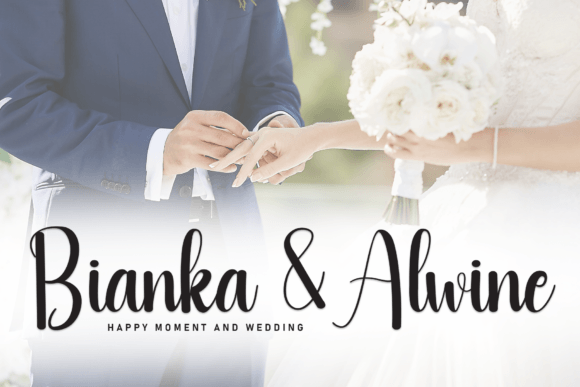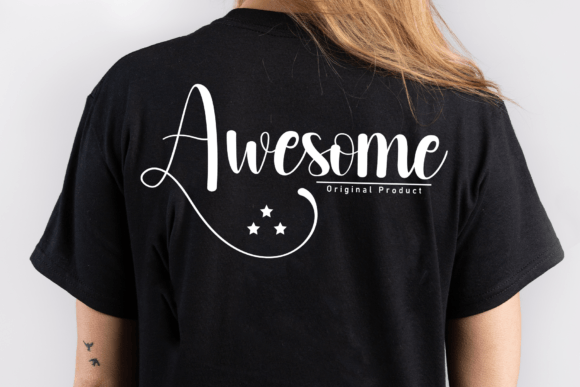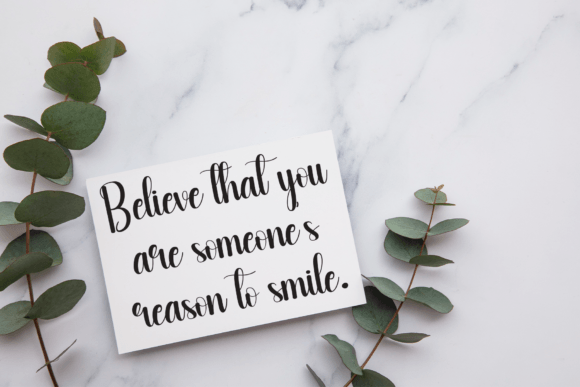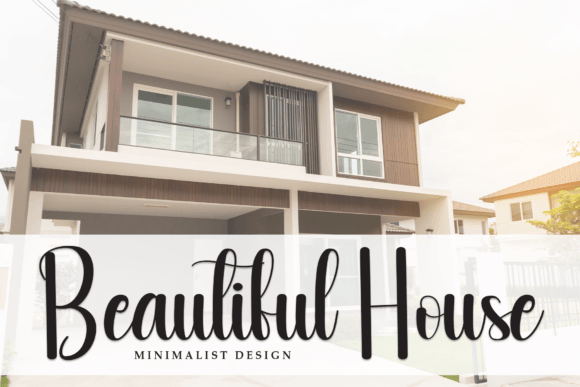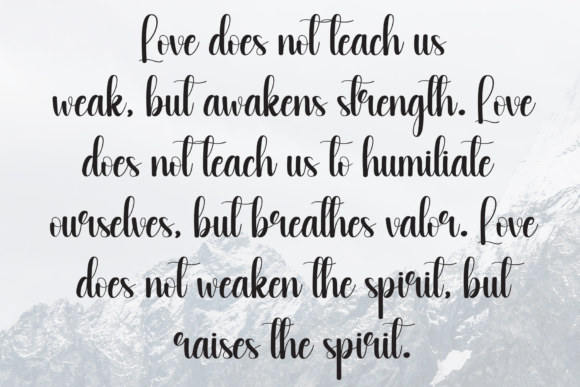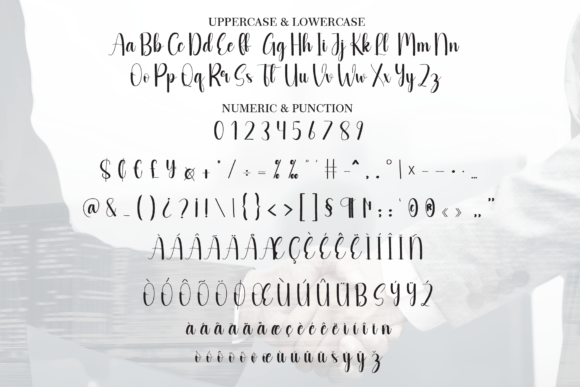
Introducing Agreement Font: The Sweet and Friendly Handwritten Font for Your Design Needs
Are you looking for a font that can add a touch of warmth and personality to your designs? Look no further than Agreement Font, a sweet and friendly handwritten font that’s perfect for creating wedding invitations, cards, and other designs that require a fun and playful touch.
What Makes Agreement Font Special?
Agreement Font is a unique and charming font that’s designed to bring a sense of joy and whimsy to your designs. Its handwritten style gives it a personal and approachable feel, making it ideal for designs that require a touch of warmth and personality. Whether you’re creating wedding invitations, birthday cards, or other celebratory designs, Agreement Font is the perfect choice.
Characteristics of Agreement Font
So, what makes Agreement Font so special? Here are some of its key characteristics:
- Cute and Fun: Agreement Font is a playful and fun font that’s designed to bring a smile to your face. Its bouncy and irregular strokes give it a lively and energetic feel that’s perfect for designs that require a touch of whimsy.
- Handwritten Style: Agreement Font has a beautiful handwritten style that’s perfect for creating personal and heartfelt designs. Its flowing strokes and connected letters give it a sense of fluidity and movement.
- Versatile: Agreement Font is a versatile font that can be used for a wide range of designs, from wedding invitations and cards to posters and social media graphics.
- Easy to Read: Despite its playful style, Agreement Font is easy to read and understand, making it perfect for designs that require a clear and concise message.
Uses of Agreement Font
So, what can you use Agreement Font for? Here are some ideas to get you started:
- Wedding Invitations: Agreement Font is perfect for creating beautiful and personalized wedding invitations that set the tone for your special day.
- Cards and Stationery: Use Agreement Font to create cute and playful cards, gift tags, and other stationery items that are perfect for birthdays, holidays, and other celebrations.
- Social Media Graphics: Agreement Font is a great choice for social media graphics, including Facebook posts, Instagram stories, and Twitter headers.
- Posters and Flyers: Use Agreement Font to create eye-catching posters and flyers that grab attention and convey your message.
Tips for Using Agreement Font
Here are some tips for using Agreement Font in your designs:
- Pair it with Other Fonts: Agreement Font pairs well with other fonts, including serif and sans-serif fonts. Experiment with different combinations to find the perfect look for your design.
- Use it for Headings and Titles: Agreement Font is perfect for headings and titles, where its playful style can really shine.
- Add Some Color: Agreement Font looks great with bright and bold colors. Experiment with different color schemes to find the perfect look for your design.
In conclusion, Agreement Font is a sweet and friendly handwritten font that’s perfect for designers and crafters who want to add a touch of warmth and personality to their designs. Its cute and playful style makes it ideal for wedding invitations, cards, and other celebratory designs. With its versatility, ease of use, and range of applications, Agreement Font is a must-have font for any designer or crafter looking to create beautiful and engaging designs.